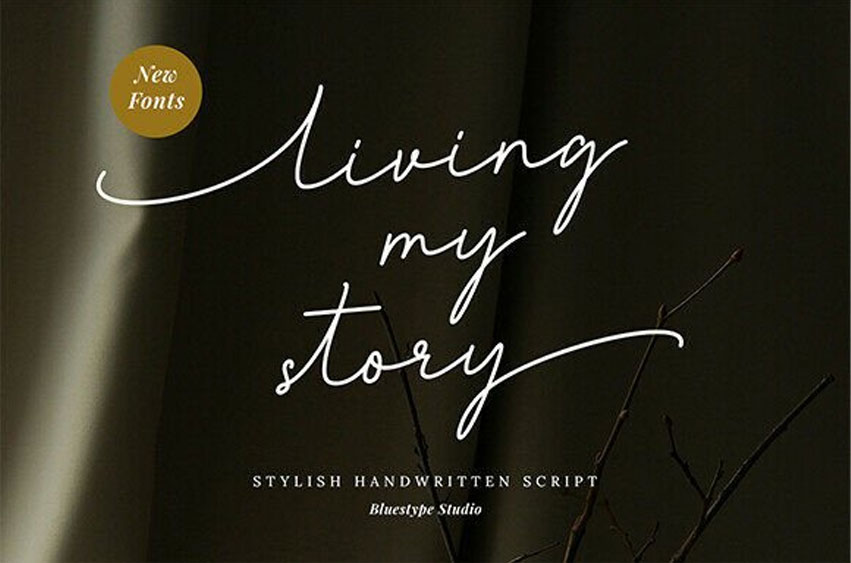
Living My Story Font Tell your tale with grace and authenticity using the Living My Story Stylish Handwritten Script!
The Living My Story font is a truly stylish handwritten script defined by its breathtakingly thin, elegant lines and expansive, flowing connections that stretch across the baseline. This new font possesses an unmistakable aesthetic of high-end personal artistry and fashionable spontaneity, making every word look like a thoughtful, quickly penned signature. Its delicate strokes and impressive sense of motion convey intimacy, luxury, and a refined narrative quality.
Ideal for fashion branding, personalized watermarks, high-end photography overlays, intimate journal designs, or luxury lifestyle blog headers, the Living My Story typeface is the ultimate asset for delivering a message with both minimalist sophistication and profound, personal elegance.